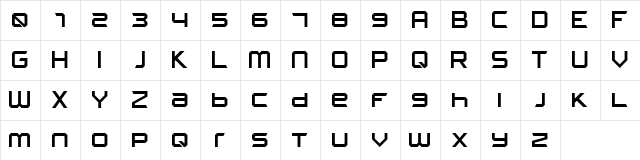
FROSTBITE Wide Regular
Design Context for FROSTBITE Wide Typeface
FROSTBITE Wide takes a measured approach to typography — its balanced proportions and neutral character make it a reliable workhorse for both digital and print work.